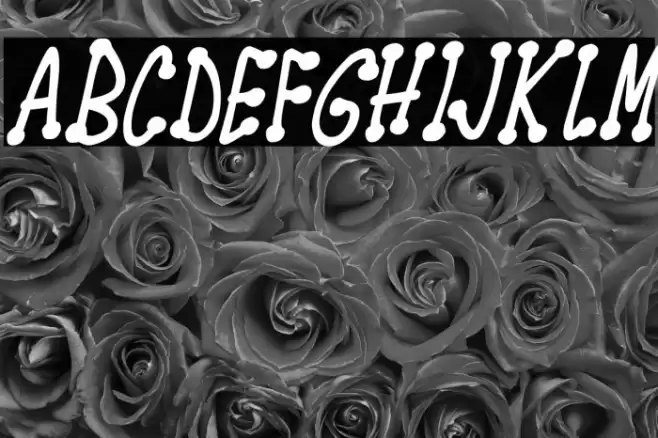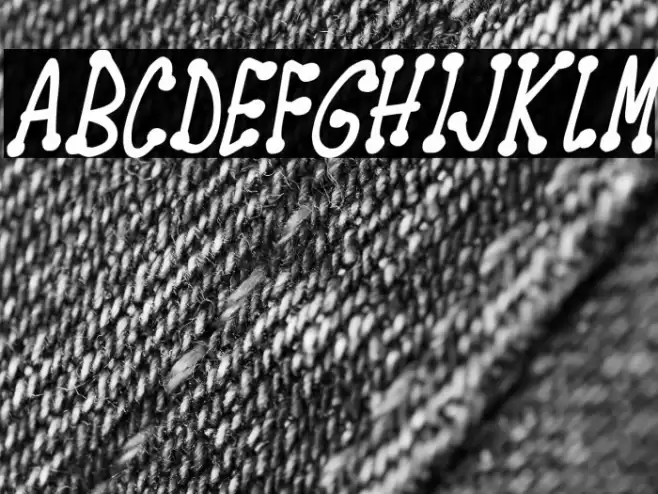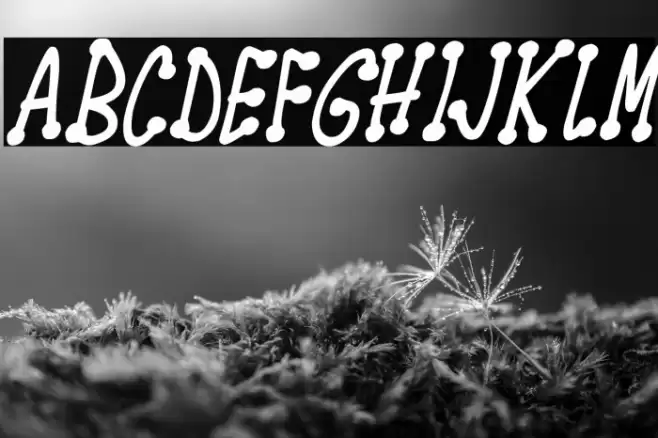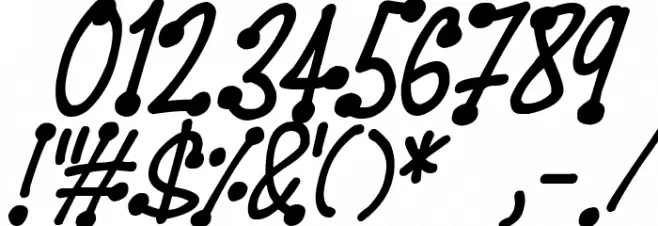
Spotsticks Italic Font
Spotsticks Italic Description
This font features a bold and playful handwritten style with a distinct italic slant, giving it a dynamic and energetic appearance. The characters are rounded and slightly condensed, with a consistent stroke width that maintains readability while adding a touch of whimsy. The uppercase and lowercase letters are well-balanced, and the numerals are clear and legible. Special characters are included, matching the overall style with a cohesive look. This font is ideal for projects that require a personal, informal touch, such as greeting cards, posters, or playful branding.
A bold, italic handwritten font with a playful and dynamic style from Uncategorized fonts.
- Font: Spotsticks Italic
- Proposed Projects: Greeting cards, posters, playful branding, children's books, and informal invitations.
- Overall Style: Playful, Energetic
- Use Case: Headlines, Logos, Informal Text
Spotsticks Italic UPPERCASE
Spotsticks Italic LOWERCASE
Spotsticks Italic OTHER CHARS